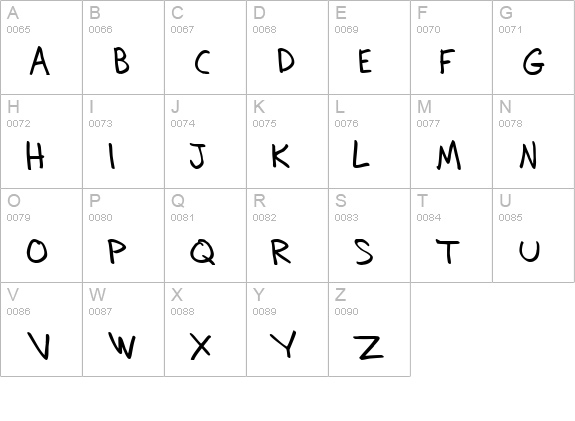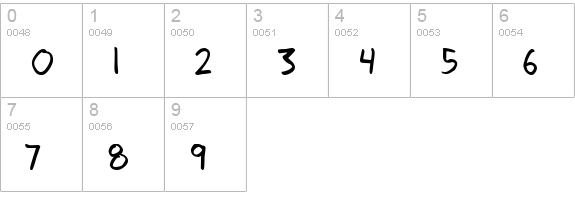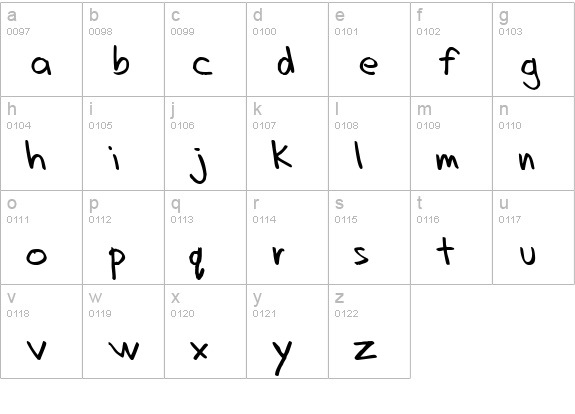
Dadhand Font Details
Introducing Dadhand, a bold and charismatic font that captures the essence of strong and reliable fatherly figures. This font exudes a sense of confidence and strength with its sturdy letterforms and commanding presence. Dadhand is the perfect choice for projects that require a touch of masculinity and authority. With its carefully crafted design, Dadhand stands out in any setting, making it ideal for headlines, logos, and branding materials. Its clean lines and distinctive shapes make it easy to read and instantly recognizable. Whether you're looking to create a bold statement or add a touch of sophistication to your designs, Dadhand is the font that will elevate your work to the next level. What sets Dadhand apart is its versatility and accessibility. This font is available for absolutely free, allowing designers, creatives, and enthusiasts alike to enjoy its premium quality without any cost. You can download Dadhand exclusively at FontsMarket.com, where it is readily available for download and ready to be incorporated into your projects. So, whether you're working on a project that needs a touch of masculinity or simply appreciate the beauty of a well-crafted font, look no further than Dadhand. It's a font that combines strength, style, and accessibility, all in one package. Download it today for free at FontsMarket.com and let your creativity soar with Dadhand font.